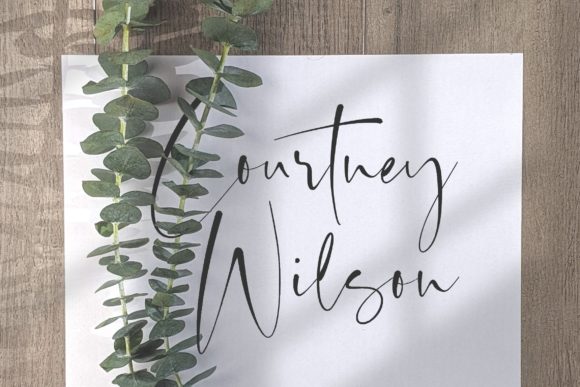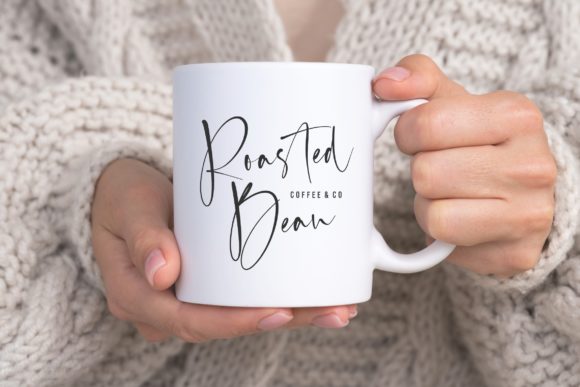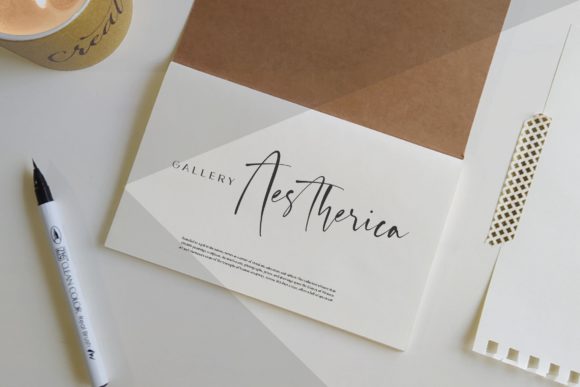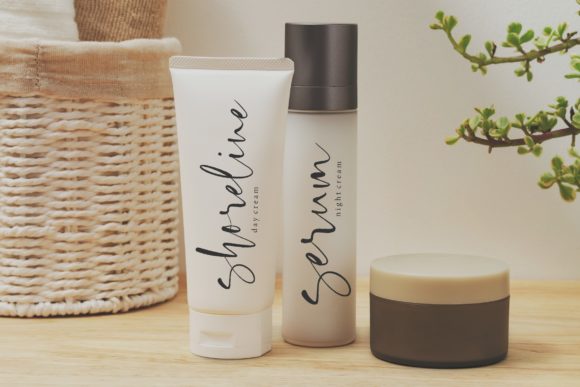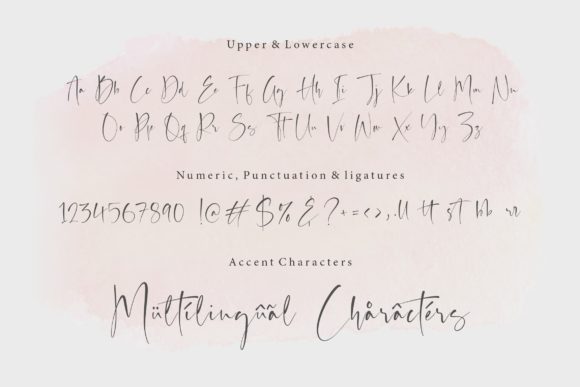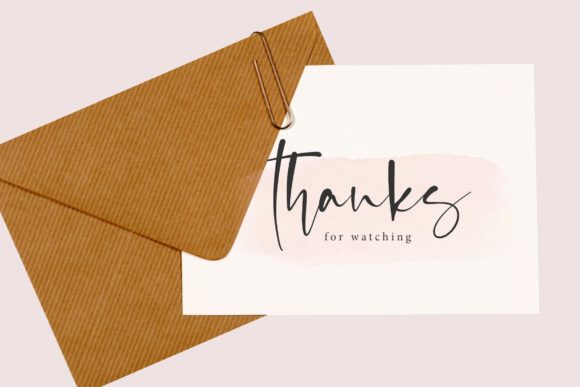
The Ultimate Guide to Auguste Boutique Font: Elevate Your Designs with Elegance
I’ll never forget the time I was working on a project for a client’s boutique fashion brand. I had spent hours perfecting the layout, selecting the perfect images, and crafting a compelling message. But as I was about to finalize the design, I realized that something was missing – the right font. The client’s brand was all about elegance and sophistication, and I needed a font that could match that level of refinement. That’s when I stumbled upon Auguste Boutique, a dazzling script font that instantly caught my attention.
A Personal Review: What I Love About Auguste Boutique
As I began to work with Auguste Boutique, I was blown away by its versatility and charm. Here are a few things that I absolutely love about this font:
- ✨ Elegant and sophisticated: Auguste Boutique exudes a sense of luxury and refinement, making it perfect for high-end brands and designs.
- ✅ Highly legible: Despite its script nature, Auguste Boutique is surprisingly easy to read, even at smaller font sizes.
- 💫 Versatile: This font can be used for a wide range of design projects, from logos and branding to packaging and marketing materials.
While Auguste Boutique is an exceptional font, there are a few minor quirks to be aware of:
- ⚠️ Limited use of bold weights: Auguste Boutique is primarily designed for lighter weights, which may limit its use for certain design applications.
- 🤔 Occasional kerning issues: As with any script font, some users may experience kerning issues, particularly with certain letter combinations.
A Practical Guide to Using Auguste Boutique
Now that we’ve covered the basics, let’s dive into some practical tips on how to use Auguste Boutique in your designs.
The Story Behind Auguste Boutique
Auguste Boutique was designed by a talented typographer who drew inspiration from the elegant script fonts of the 18th century. With a passion for creating beautiful and functional fonts, the designer poured their heart and soul into crafting a font that would meet the needs of modern designers. The result is a stunning script font that’s both elegant and versatile.
| What is Auguste Boutique? | Auguste Boutique is a elegant script font designed for use in a wide range of design projects, from logos and branding to packaging and marketing materials. |
| Is Auguste Boutique suitable for body text? | While Auguste Boutique is highly legible, it’s primarily designed for use in headlines and titles. For body text, a more traditional serif or sans-serif font may be more suitable. |
| Does Auguste Boutique support OpenType features? | Yes, Auguste Boutique supports a range of OpenType features, including ligatures, stylistic alternates, and glyphs. |